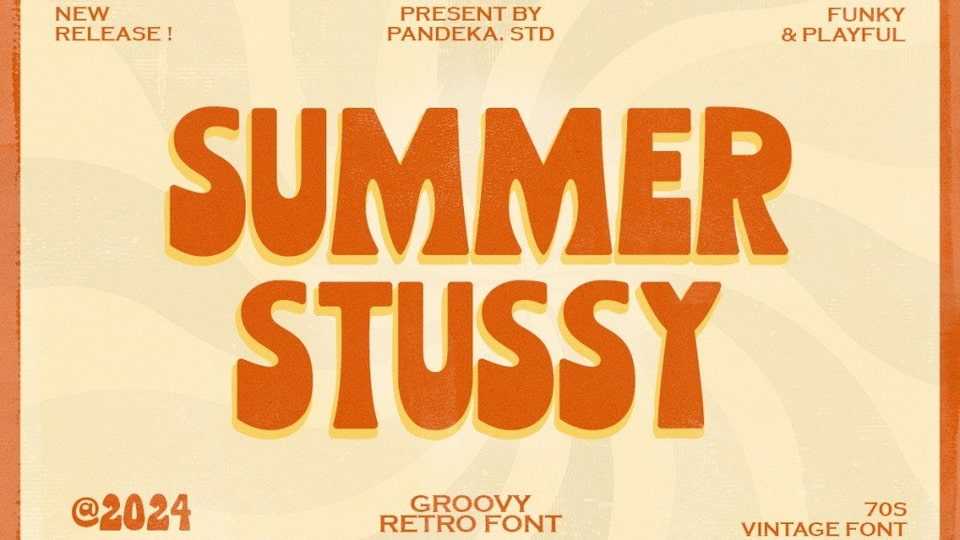
Download Summer Stussy font, a display typeface inspired by some retro funky with an all-caps, 70’s typography and completed with groovy bellbottoms.